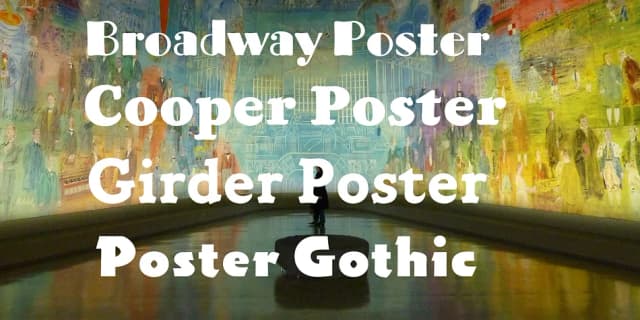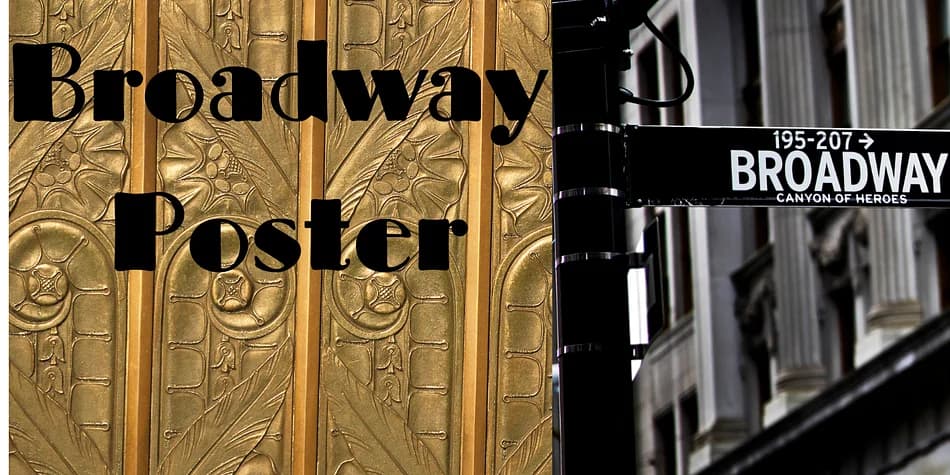
Broadway Poster by FontHaus is a decorative typeface that captures the authentic energy of 1920s lettering. FontHaus revived this design in 1995 from Morris Fuller Benton's original 1925 work, drawing direct inspiration from actual show card lettering specimens in "Commercial Art of Show Card Lettering," a foundational reference book from the era. It feels hand-brushed rather than computer-generated, with soft edges and genuine character throughout.
What sets this version apart are the small but purposeful details: a slanted lowercase f, an unexpectedly charming g, and an oversized R that gives the whole font its distinctive personality. These quirks come from the original concave design element that runs through the tops and bottoms of each letter, creating visual rhythm without feeling ornate or overwrought. You'll notice it stands distinctly above other Broadway digitizations on the market, looking genuinely of-the-period rather than merely referencing it.
This is the font for vintage theater posters, speakeasy menus, art deco invitation suites, and retro entertainment branding that needs to feel like it actually came from that era. Its softness keeps it approachable while the 1920s DNA keeps it grounded in its roots. Grab Broadway Poster on Creative Fabrica and start working with a typeface that understands its own history.
Broadway Poster Font is a decorative font that shines as a display or heading face. Pair it with a clean sans-serif or serif font for body text β the contrast creates a clear hierarchy while the two styles stay balanced and easy to read.
Broadway Poster Font